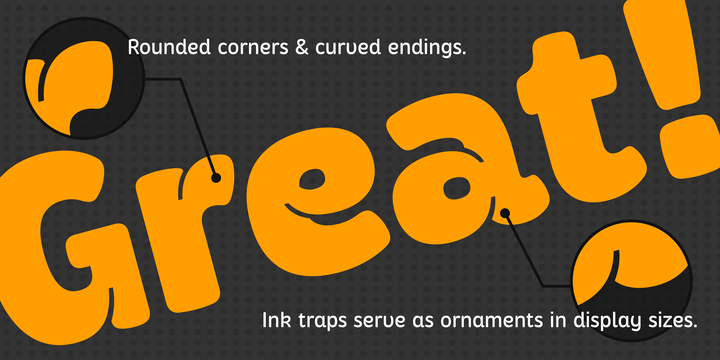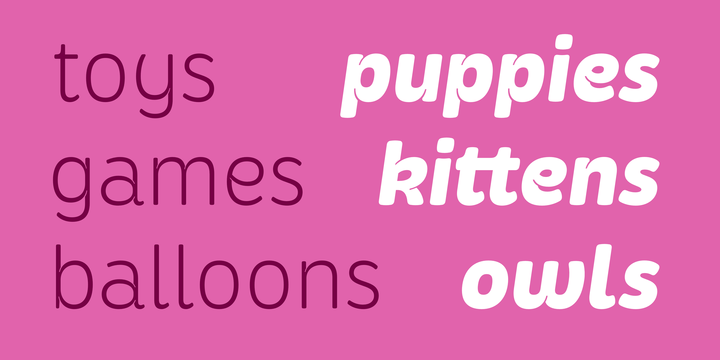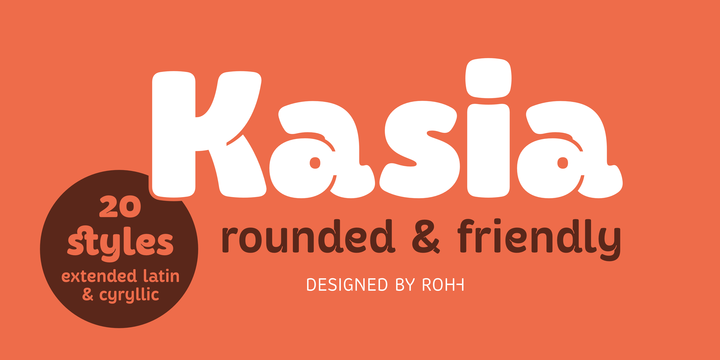
Kasia Font Family
Kasia™ is a unique contemporary sans serif family, full of character and originality. It’s soft and rounded shapes give it warm, friendly, playful and dynamic feel. Special ink traps serve as ornamental details in bigger sizes, making Kasia™ a wonderful display font family. In small sizes, Kasia™ is very clean and legible. Its proportions and optimized kerning make it a versatile, friendly and organic text family, that features broad variety of OpenType features.